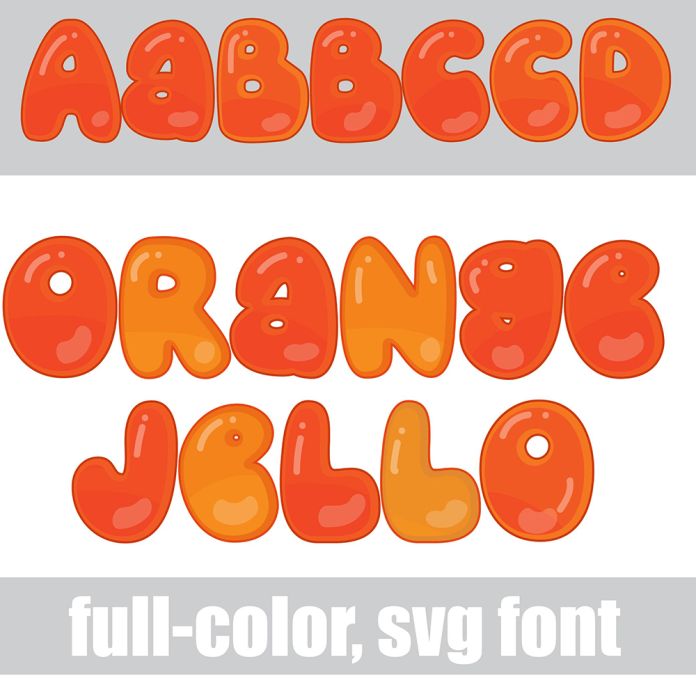
This full-color font is a fun, bulgy sans serif in an orange color palette with highlights throughout. There is an alt case with additional colors you can access through your system's character map. This font works best for titles, displays, posters and more. Please note color fonts will show as black in non compatible programs. This font type is compatible with Silhouette Studio.